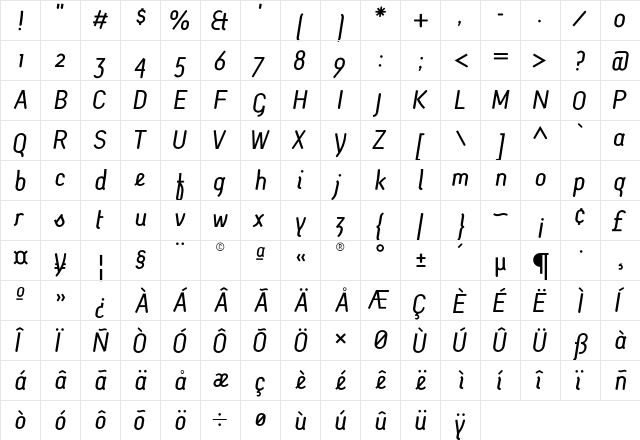
Kursiv inbetween
Design Context for Kursiv Typeface
Kursiv takes a measured approach to typography — its balanced proportions and neutral character make it a reliable workhorse for both digital and print work. The dynamic lean of this cut emphasises speed and emphasis in any layout.
Pro Tip: Use Kursiv for emphasis, pull quotes, and subheadings where its slanted energy can add rhythm to the layout.